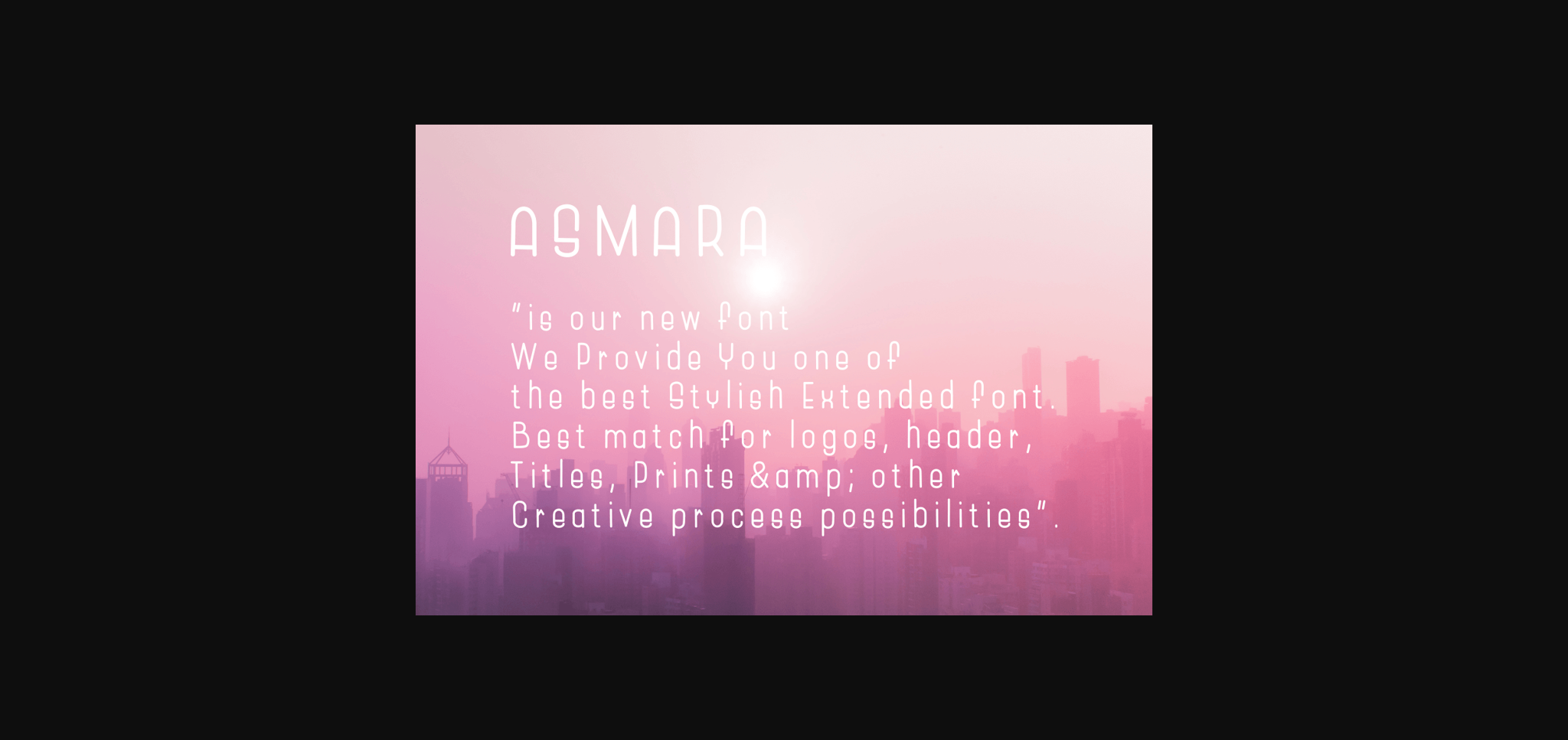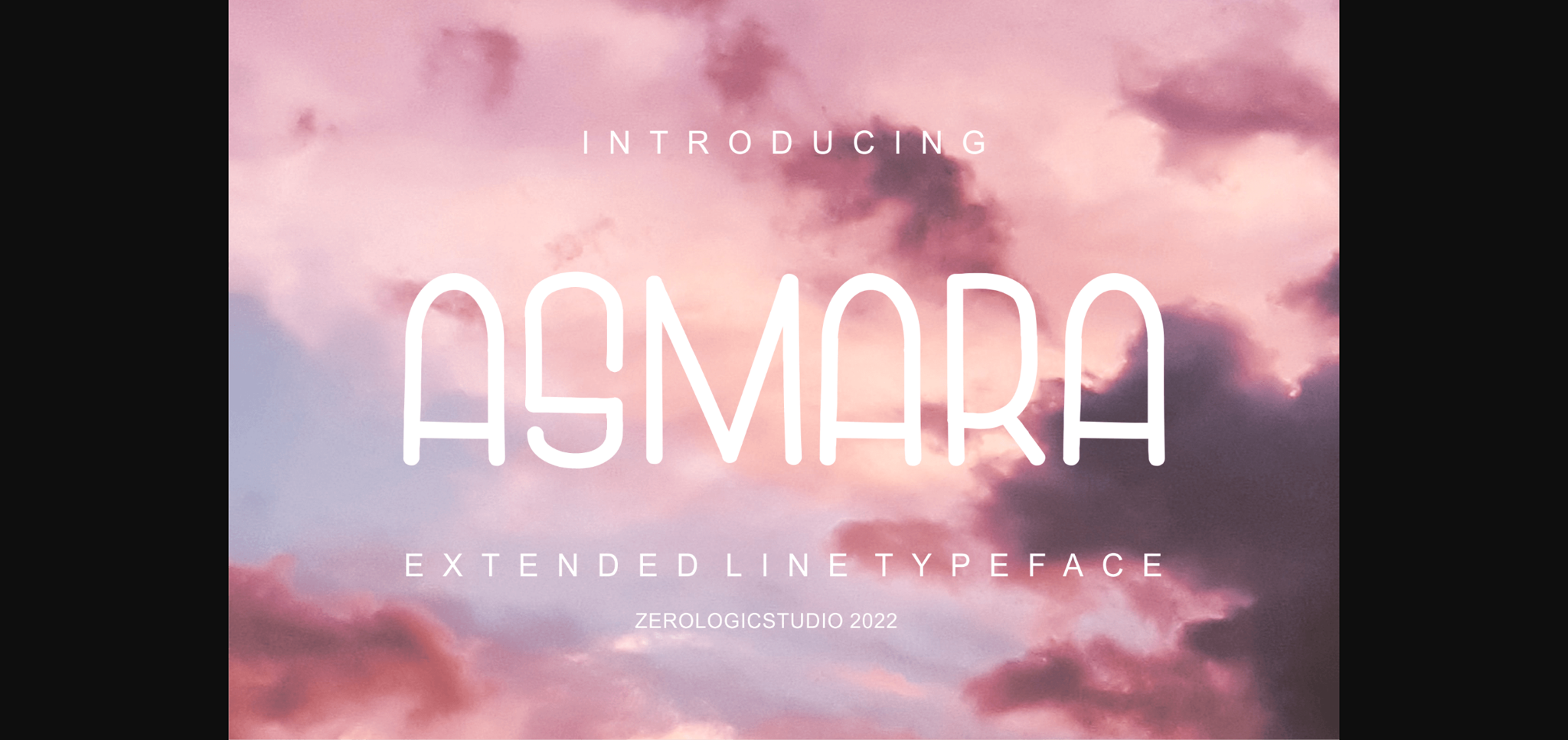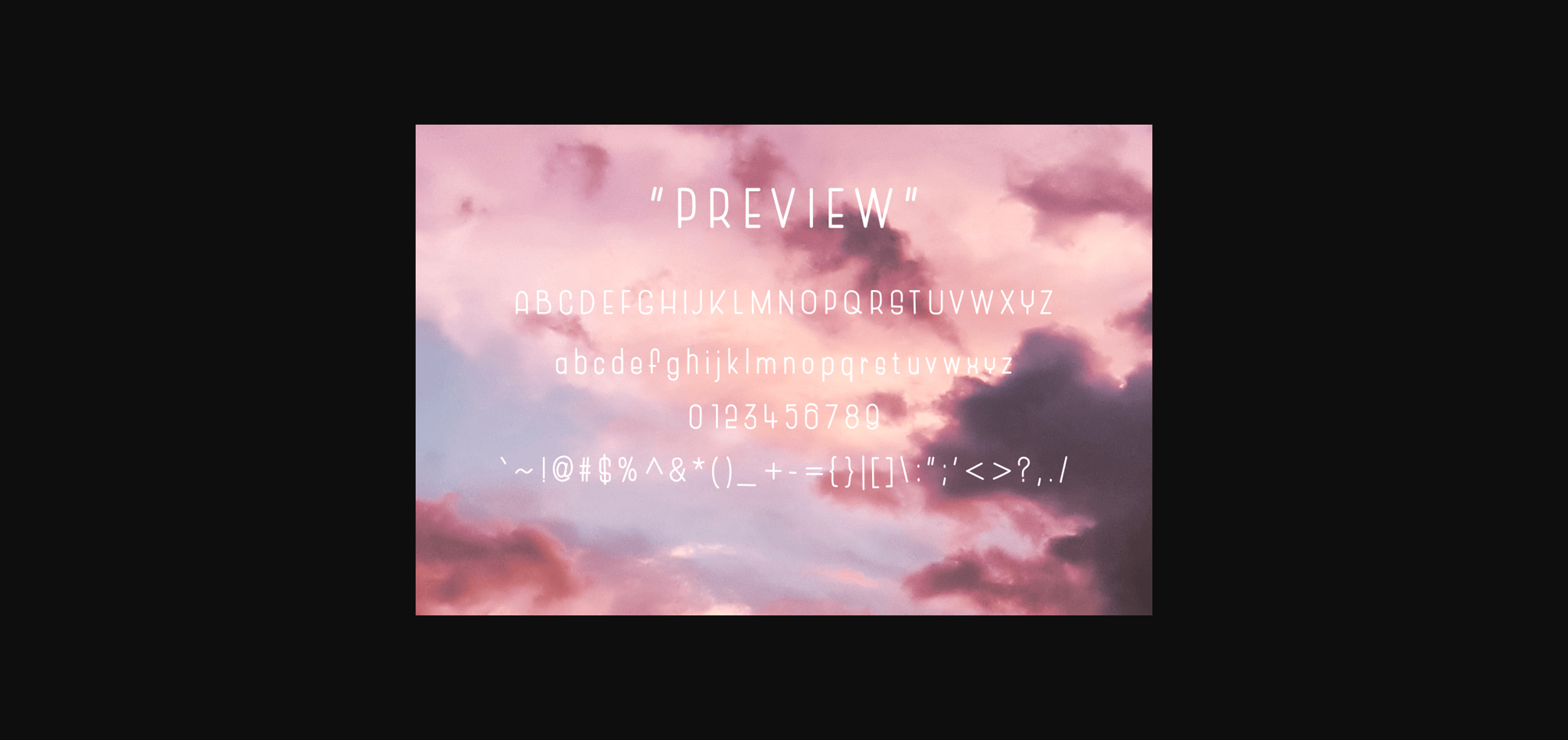
HomeSans Serif FontsAsmara Font Sans Serif Fonts Asmara Font FacebookXPinterestWhatsApp 1 of 5 ... Asmara Font Poster 2... Asmara Font Poster 3... Asmara Font Poster 4... Asmara Font Poster 5... About Asmara Font Asmara is a stylish and classy sans serif font. Incredibly versatile, this font will look great in wide variety of contexts. DOWNLOAD NOW People also explored Ashtray Font Jellybeans Font Daizen Font Konico SchussSlabProBoldIta No.19 (1 Font) Font Someone Font Anggika Font Crispynut Font Maldini Font 262 0 TagsAsmaraAsmara Font Previous articleKazyger FontNext articleCuluer Font LEAVE A REPLY Cancel reply Comment: Please enter your comment! Name:* Please enter your name here Email:* You have entered an incorrect email address! Please enter your email address here Website: Save my name, email, and website in this browser for the next time I comment. Personal Use Free Xplor Personal Use Free Read more about this font Special Day Personal Use Free Read more about this font Masker Area Personal Use Free Read more about this font Hollster Personal Use Free Read more about this font BLOG Fonts That Capture the Spirit of New York City New York City is more than just a place—it’s an experience, a rhythm, a visual language... How to Cut Any Font on Cricut: Convert a Font to SVG (Free) Elegant Wedding Invitation Fonts – Handwritten & Script Fonts Modern Sans-Serif Fonts That Brands Love in 2025